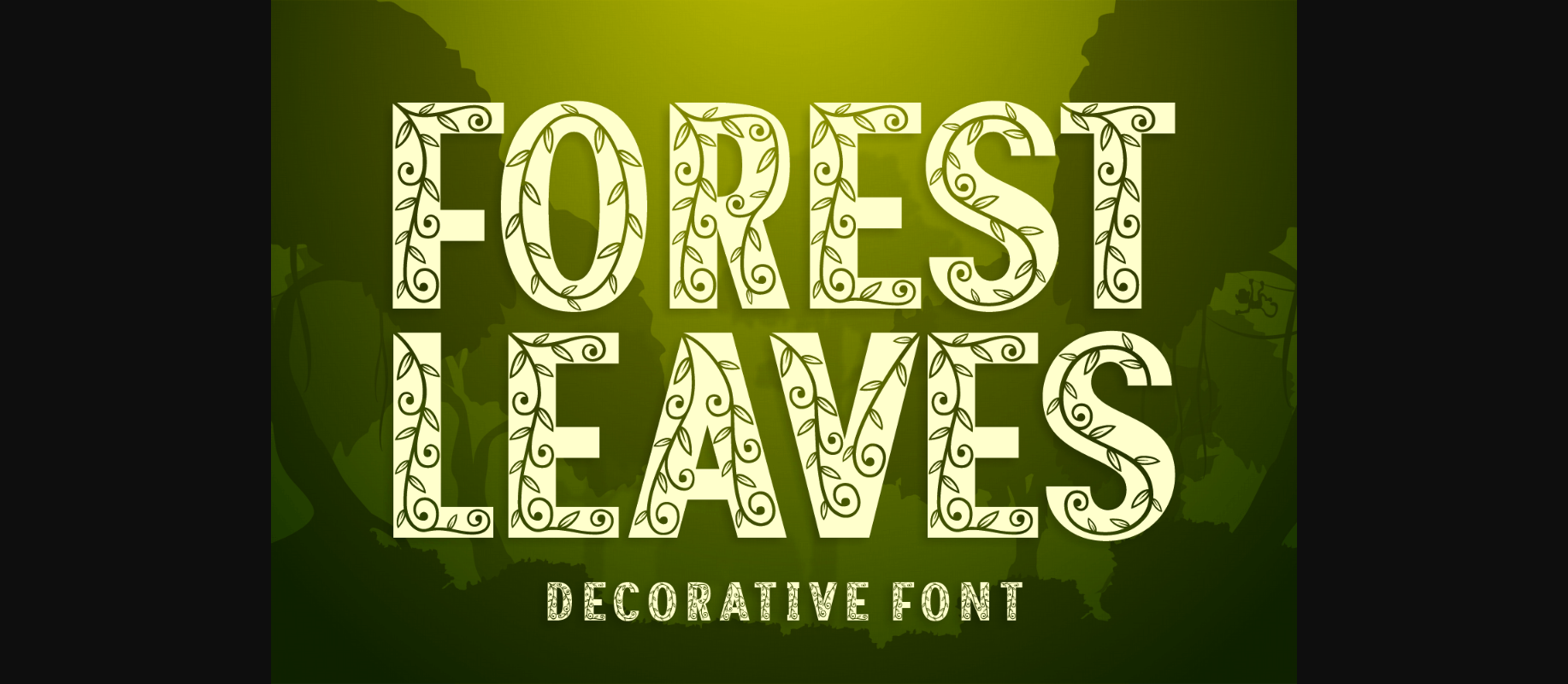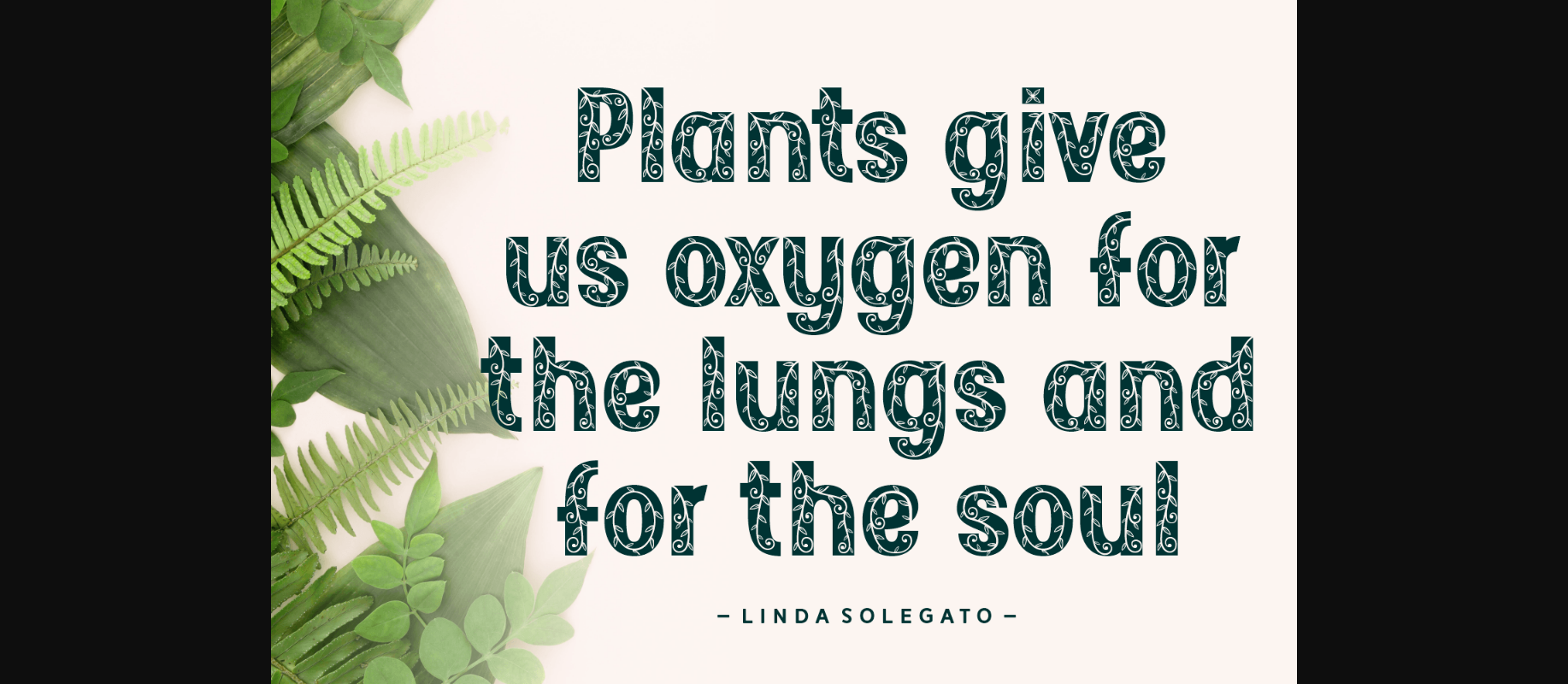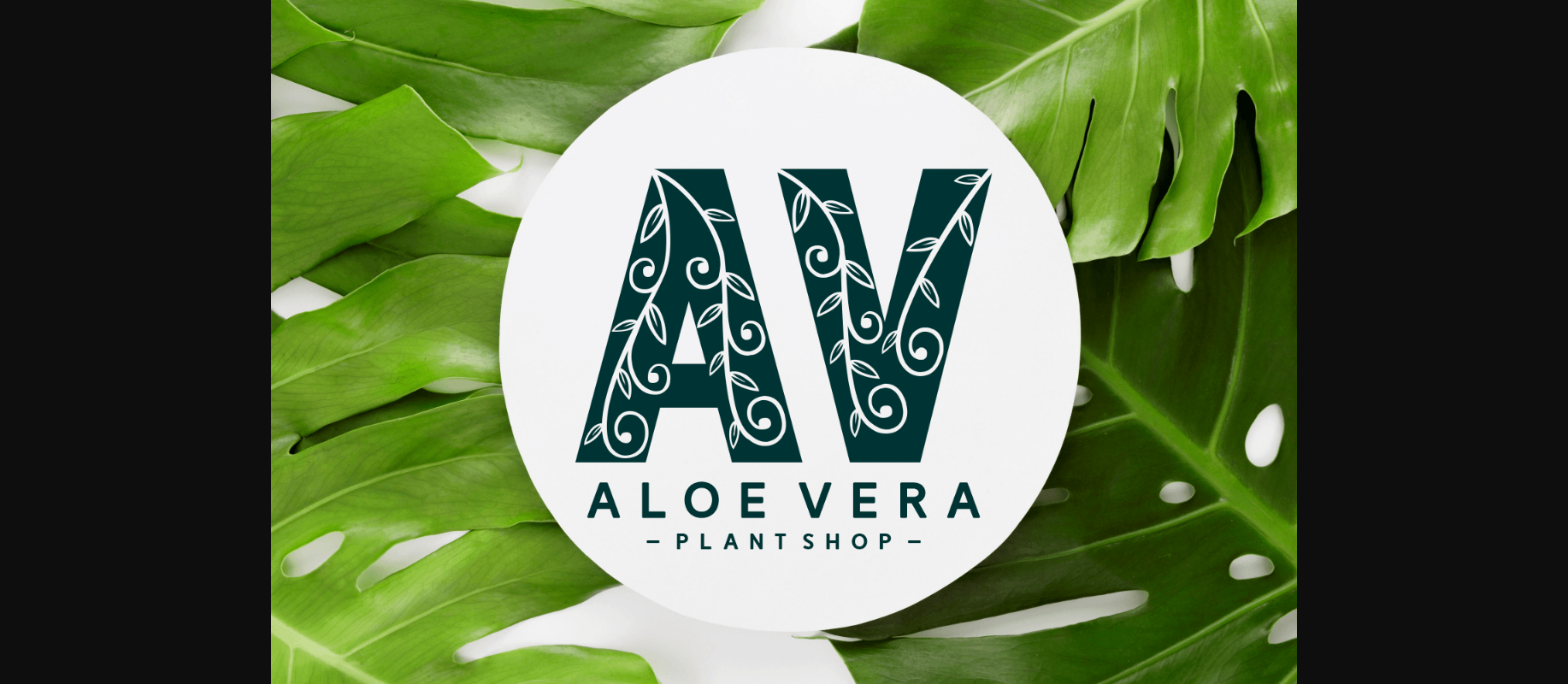
About Forest Leaves Font
Forest Leaves is a beautiful nature-inspired decorative font. Let its leavs patterned strokes inspire your next project! This font is perfect for personal branding, wedding invitations, wall art, frames, cards, t-shirts, posters, and quotes.